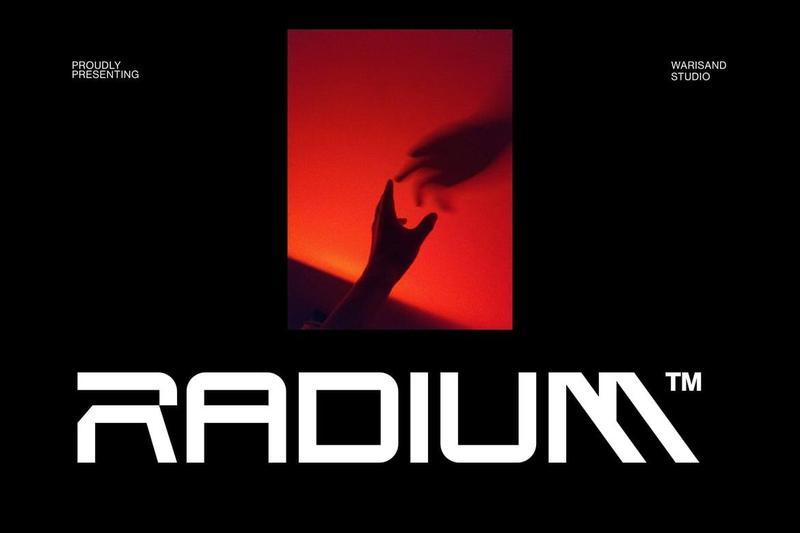
Radium – Modern Logo Font 6FYVS3P
**Radium** is a high-impact futuristic display font made for brands that want to feel powerful, sharp, and visually ahead of time. Inspired by digital systems, sci-fi interfaces, and modern technology aesthetics, Radium features bold square shapes, clean cuts, and a strong logo-ready structure. Its solid construction makes it ideal for tech branding, gaming logos, digital platforms, cyber visuals, and modern identity systems that need a confident and memorable look.
Created for designers who build bold visual worlds, Radium brings a strong futuristic tone to movie posters, animation titles, esports graphics, product launches, and digital campaigns. The font has a clean but aggressive character, giving every headline a sense of speed, innovation, and cinematic energy. Radium is a perfect choice when your project needs a modern font with technology-driven style, bold presence, and a premium futuristic finish.
Designed for creatives who want stylish, functional, and flexible typography for business identities, promotional materials, and standout visual projects.